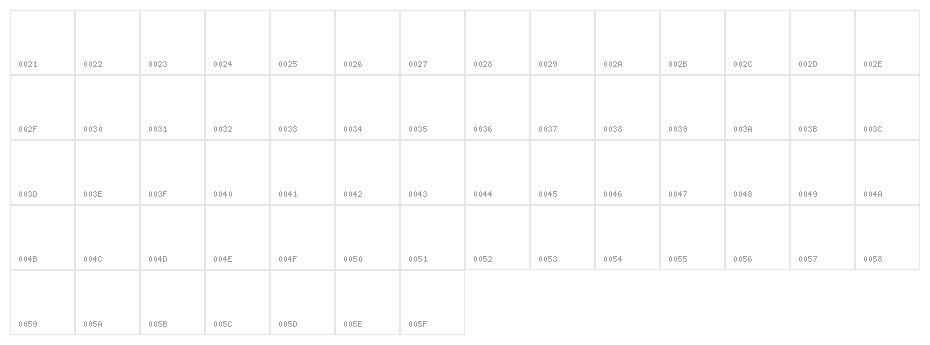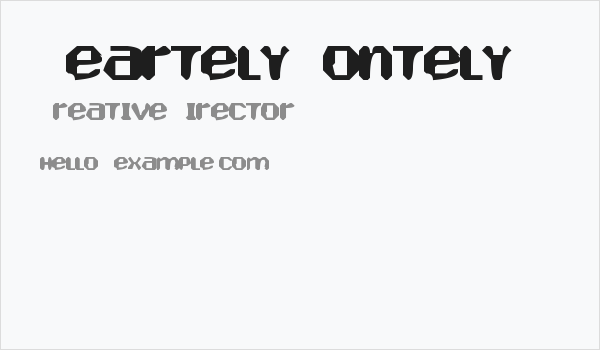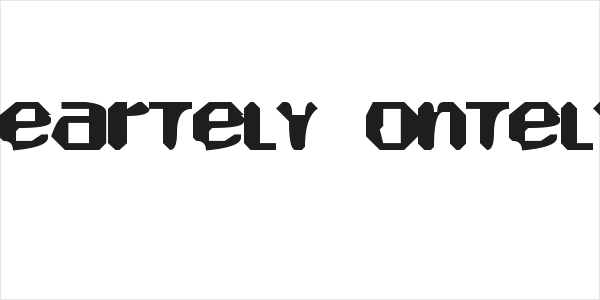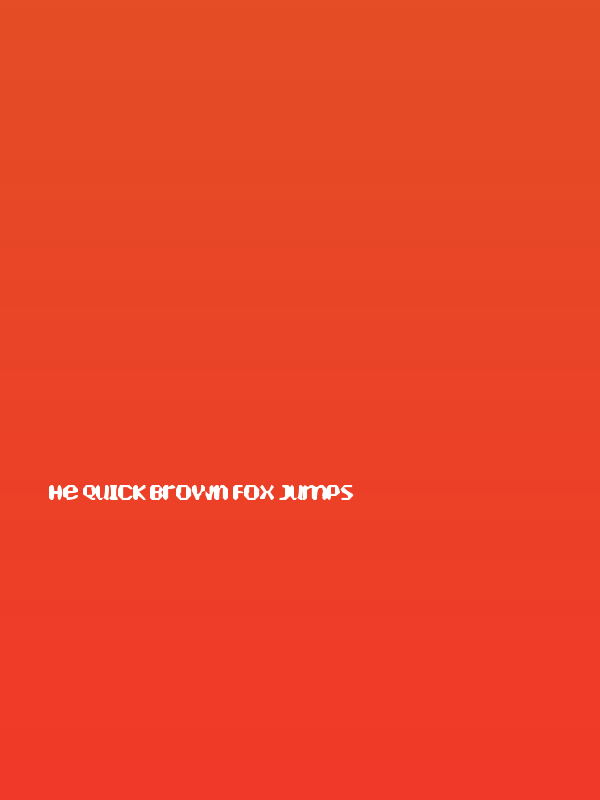
Heartely Font
This font features a bold and geometric design with a distinct angular style. Each character is crafted with sharp edges and a blocky appearance, creating a futuristic and industrial feel. The uniformity in the design gives it a cohesive look, while the unique shapes of the letters add a touch of creativity and modernity. The font's strong presence makes it suitable for attention-grabbing headlines and logos. Its boldness and distinct character shapes make it stand out, providing a striking visual impact.
| Proposed Projects | Ideal for branding, logos, posters, and any project requiring a modern, industrial aesthetic. |